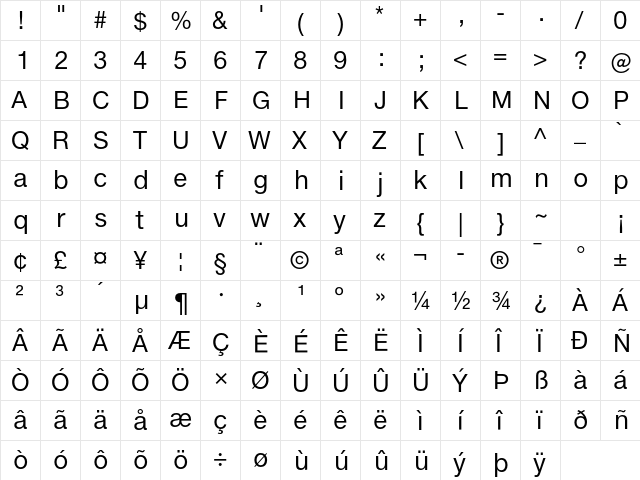
Helvetica Neue ET Std 55 Roman
55 Roman · Linotype GmbH Linotype Design Studio ·
Design Context for Helvetica Neue ET Std Typeface
Helvetica Neue ET Std is a composed and adaptable typeface that performs quietly and consistently across a wide range of design contexts.